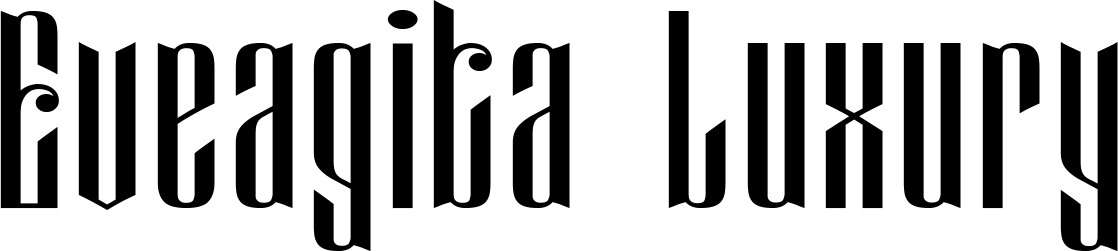
Eveagita Luxury Font
Try Eveagita Luxury and give your ideal typography a classic vintage feel, with a medieval gothic style all at once! The bold characters of this retro font are strong, and old-fashioned, and have mixed long descenders and ascenders, which give your typography a suspenseful feel.
The mixed alphabets are the only letterforms Eveagita Luxury comes with, as it doesn’t contain numbers and punctuation. It’s useful for books, logos, tattoos, headings, and more, but be aware it can be challenging to read.
Eveagita Luxury have 6 fonts family:
1. Eveagita Luxury Thin
2. Eveagita Luxury Regular
3. Eveagita Luxury Bold
4. Eveagita Luxury Cap Thin
5. Eveagita Luxury Cap Regular